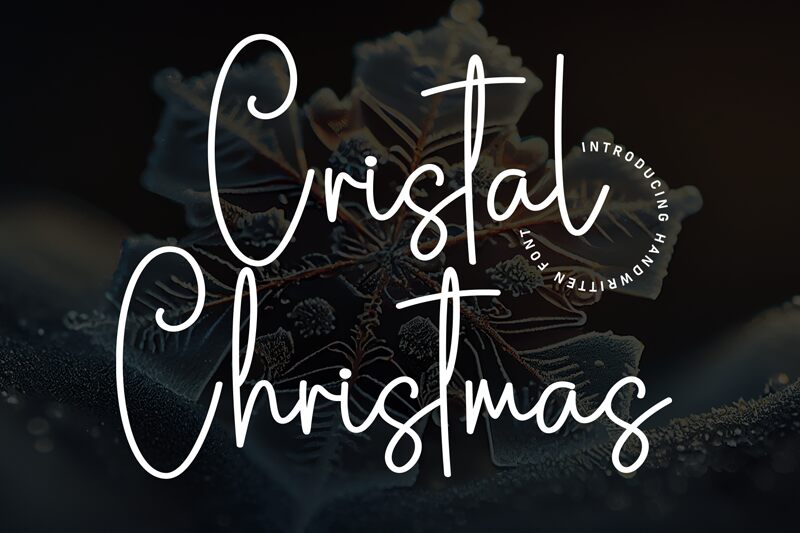
Cristal Christmas
Cristal Christmas font by Scratchones is a light handwritten font with an elegant flowing style. This casual script typeface carries a modern aesthetic while featuring an organic structure that refers to its free-flowing appearance. The letters look mysterious and stylish as they arrange themselves into incredibly attractive combinations.